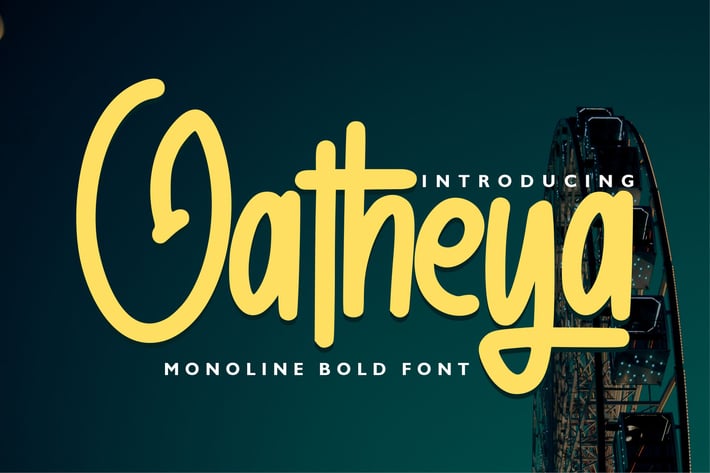
Jatheya | Monoline Bold Font
Jatheya | Monoline Bold Font with a calligraphy style, So beautiful on invitation like greeting cards, branding materials, business cards, quotes, posters, and more!